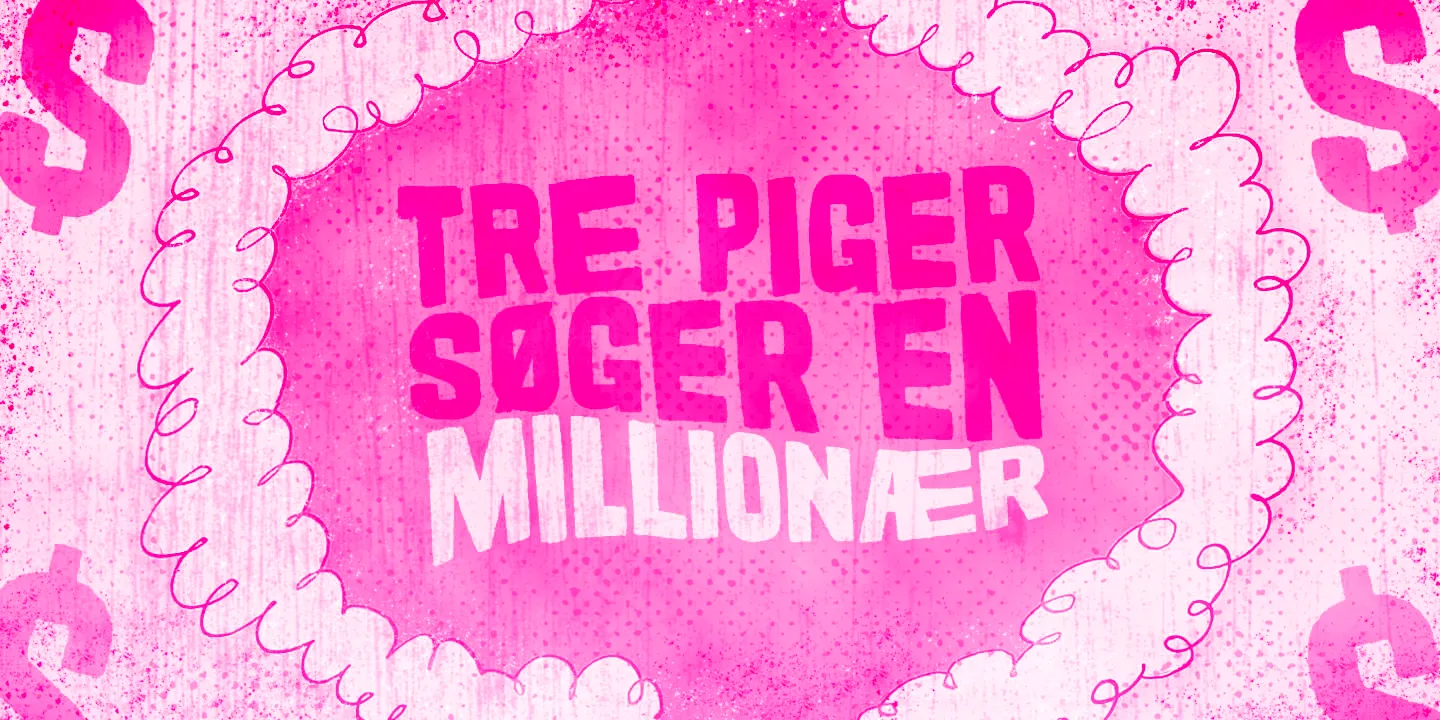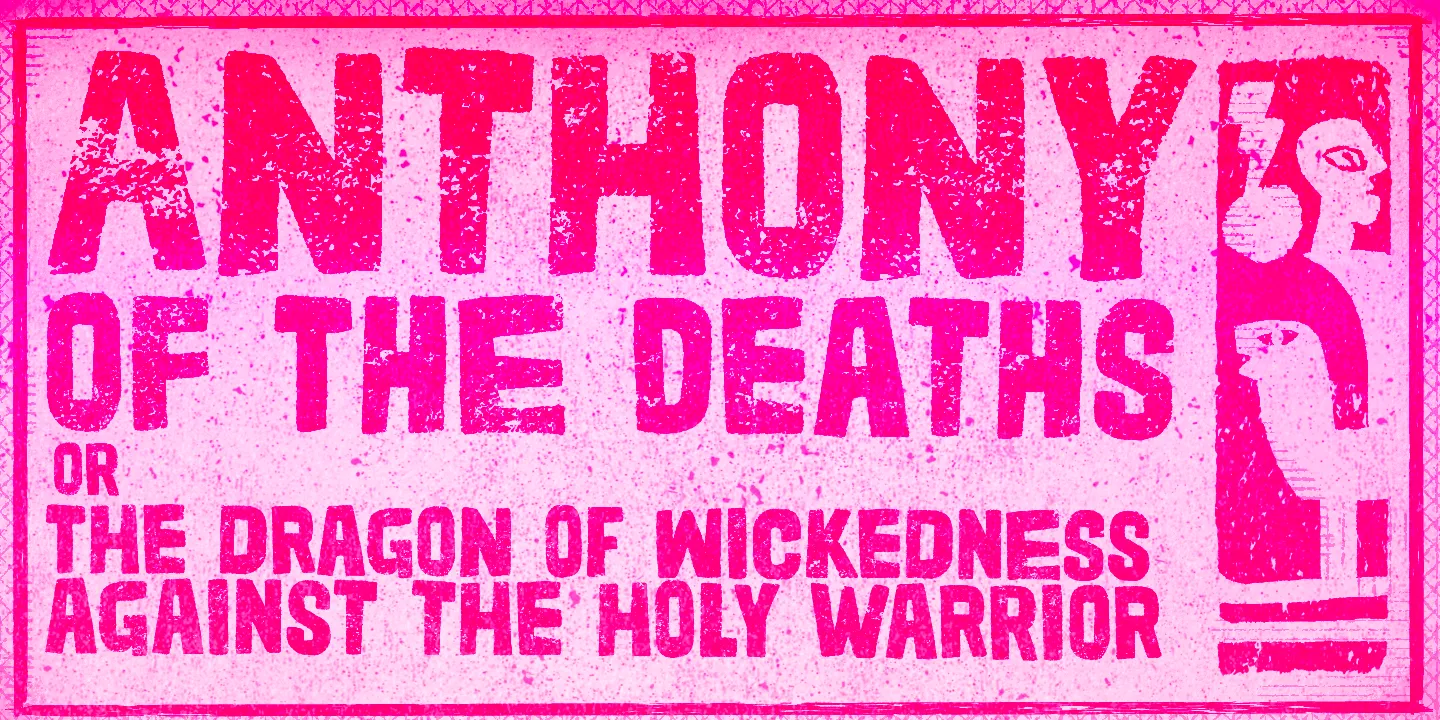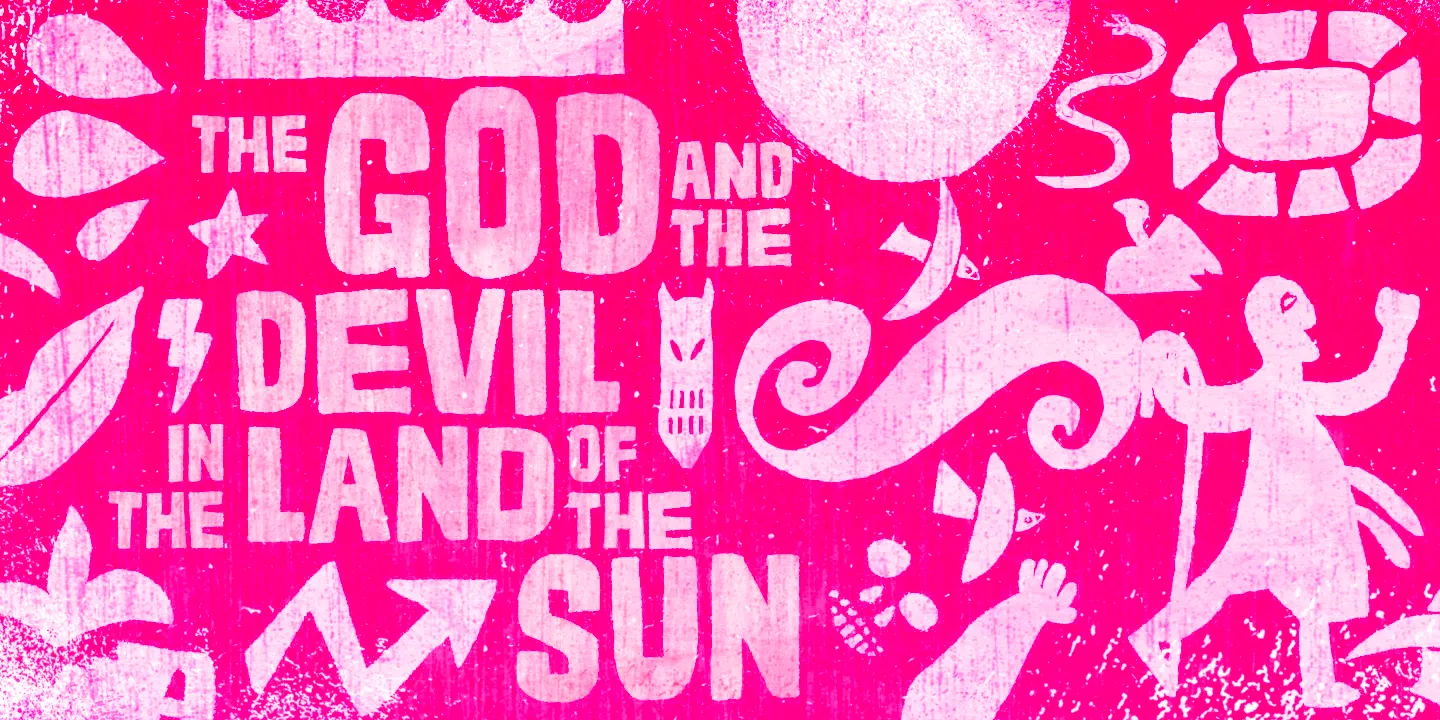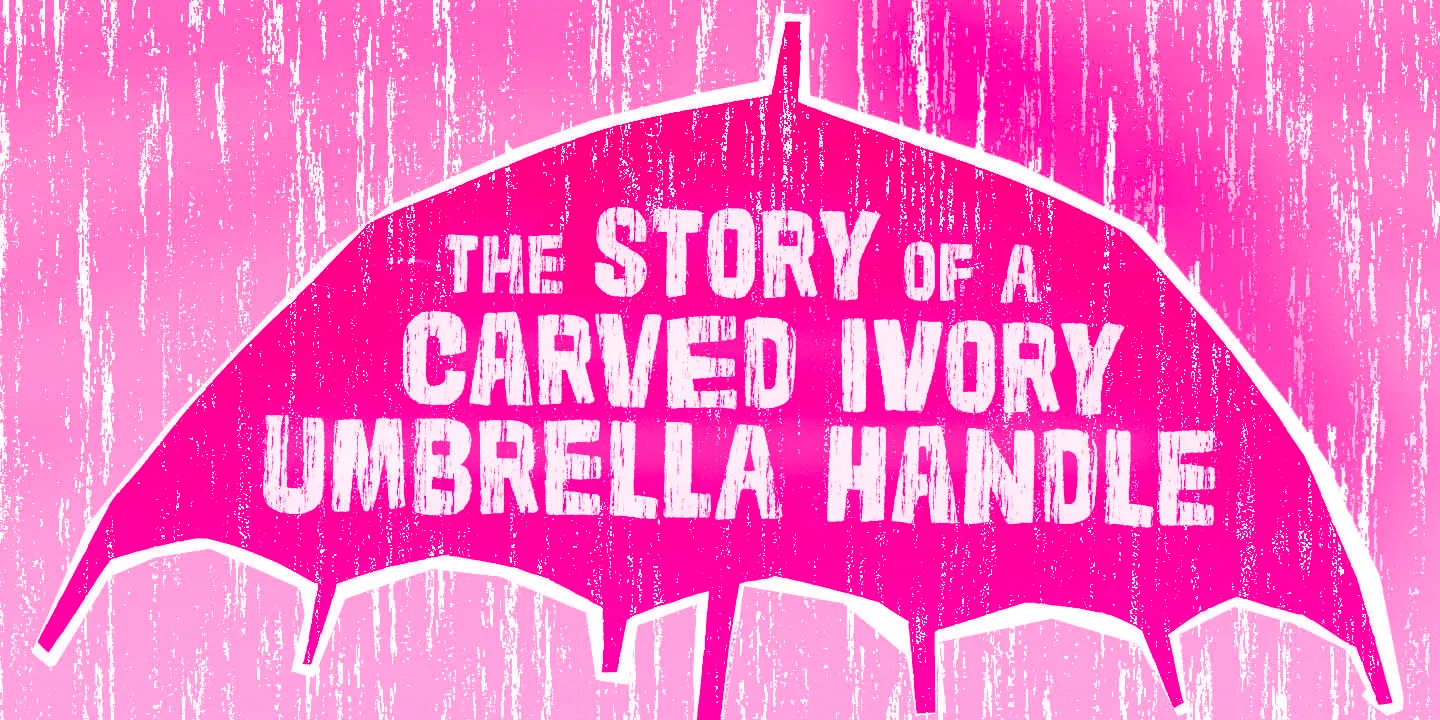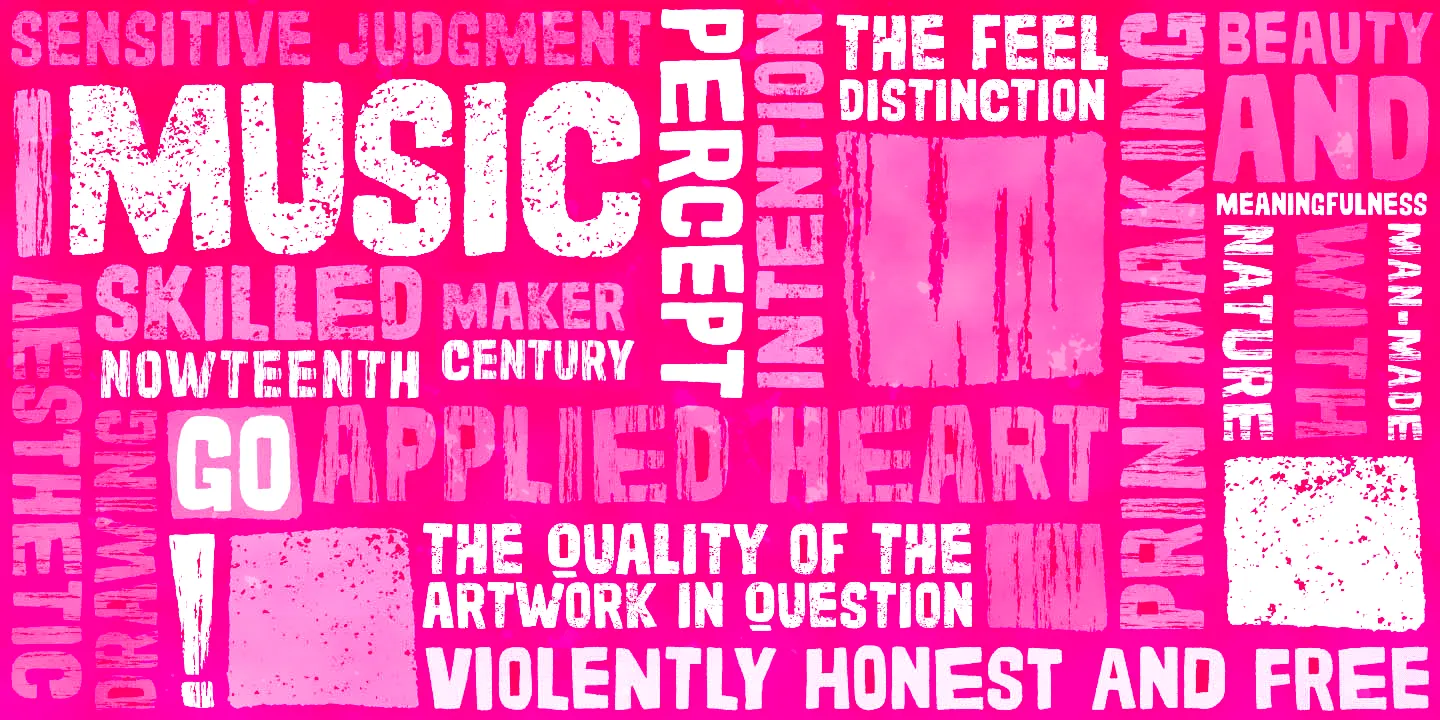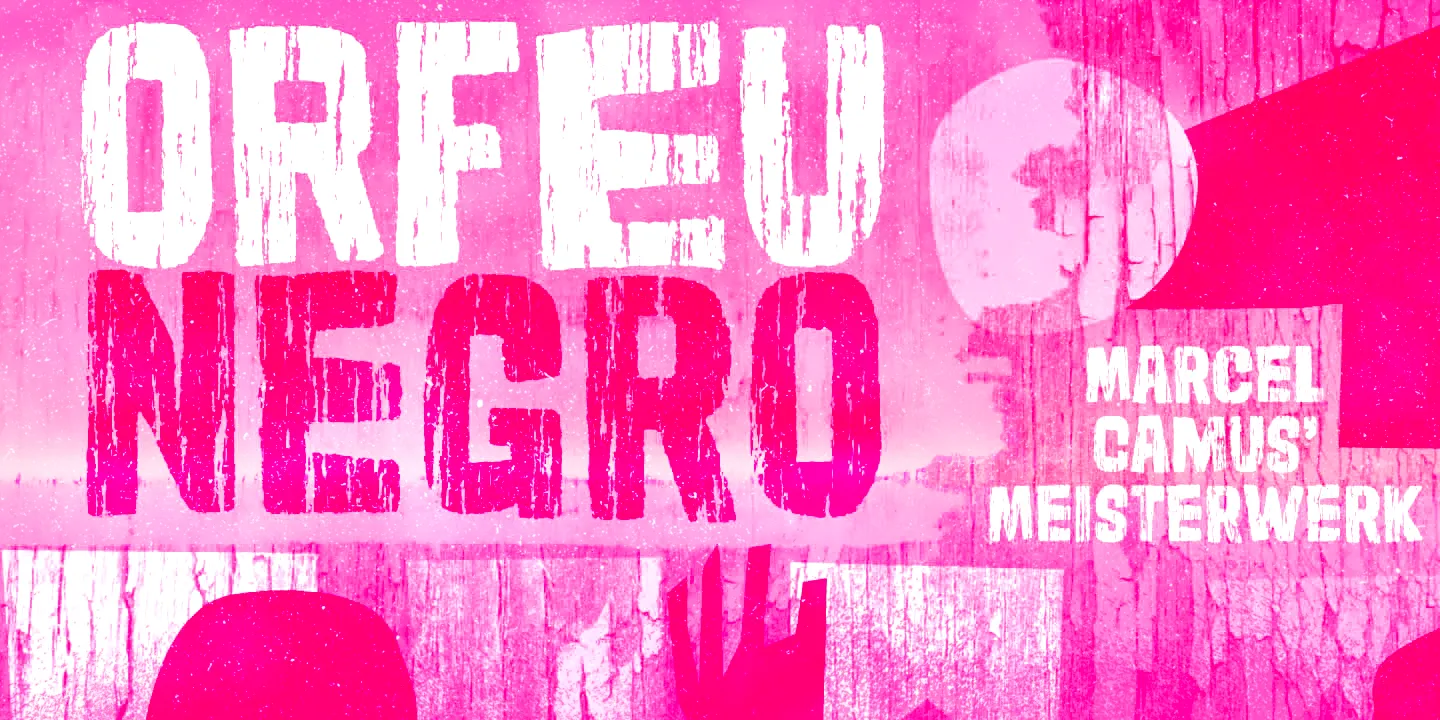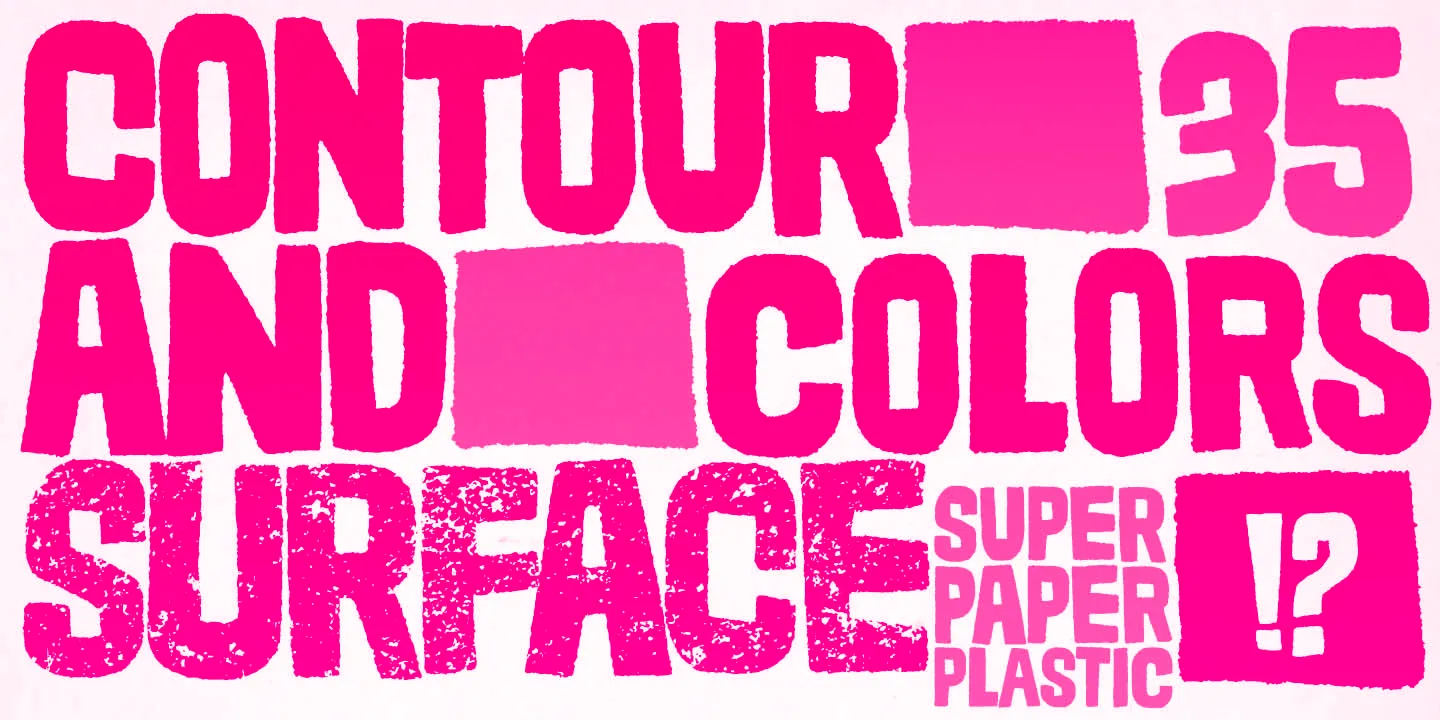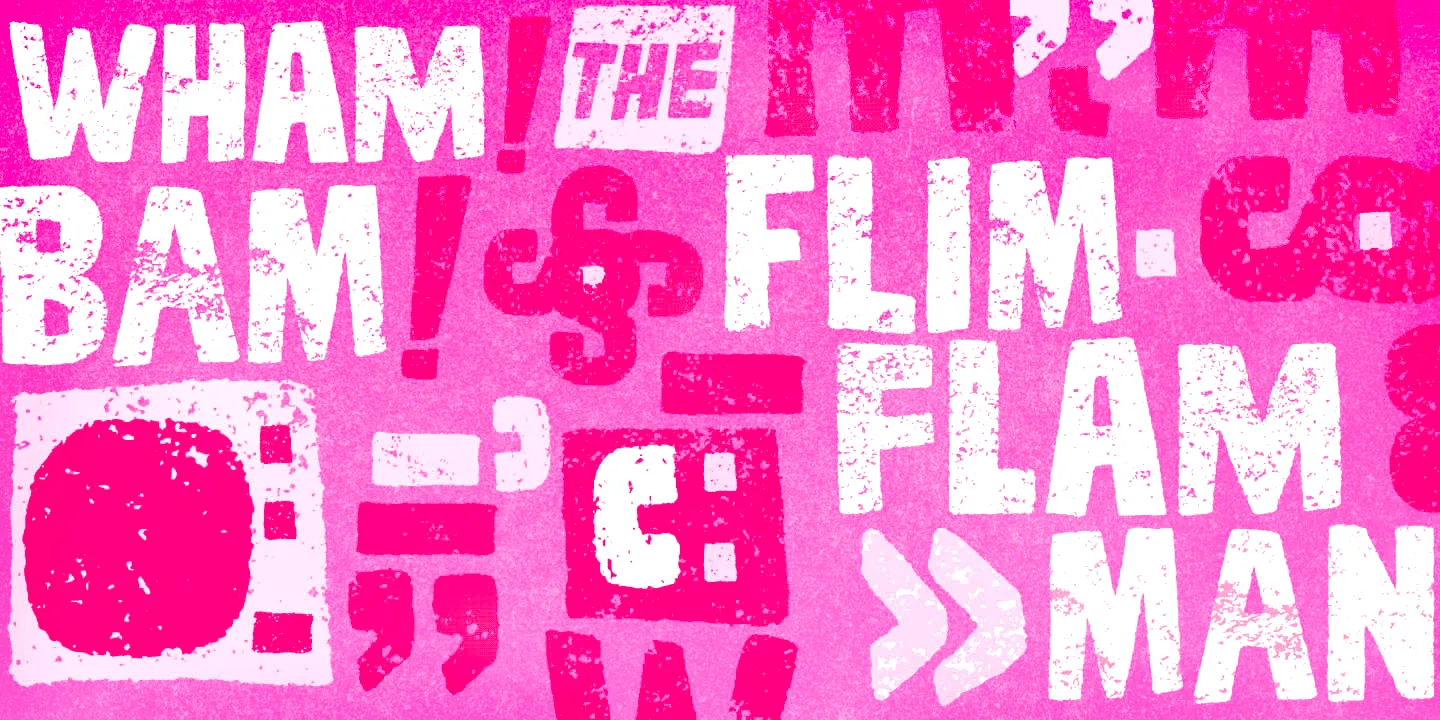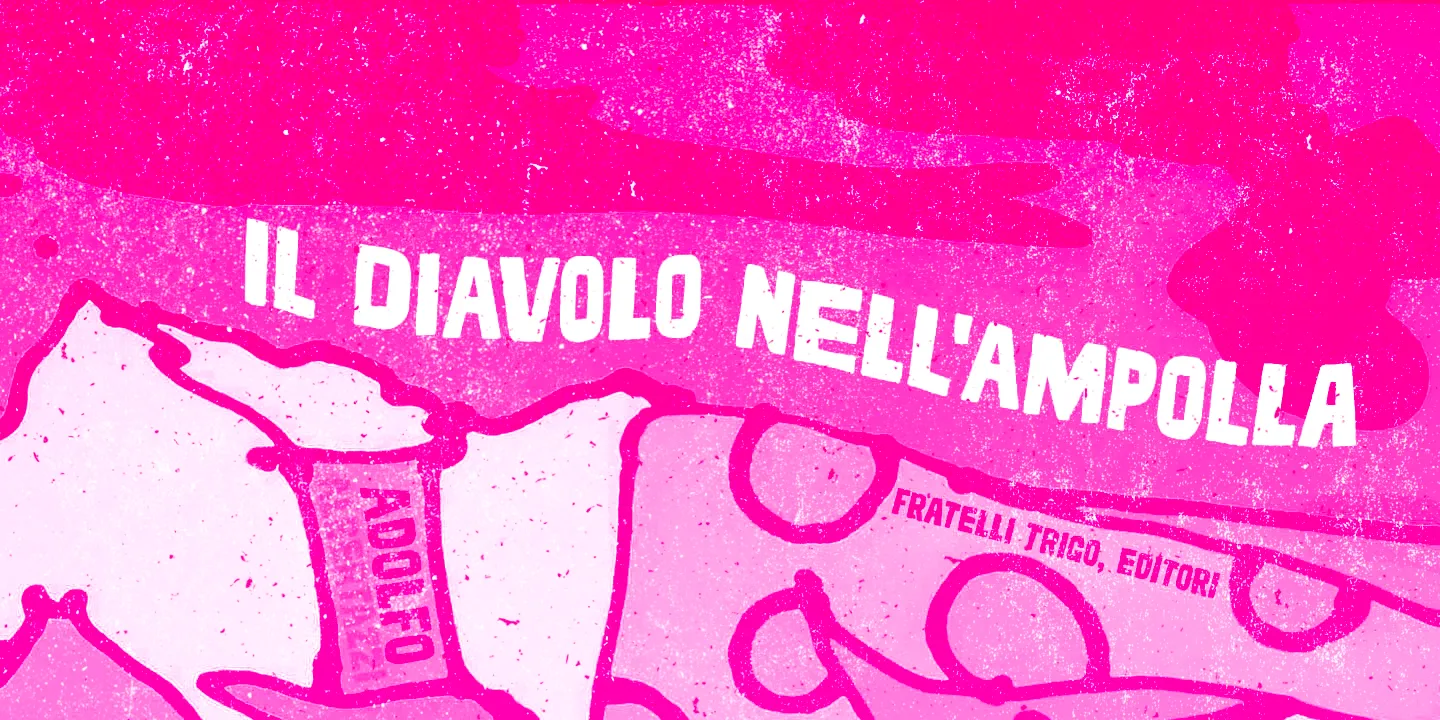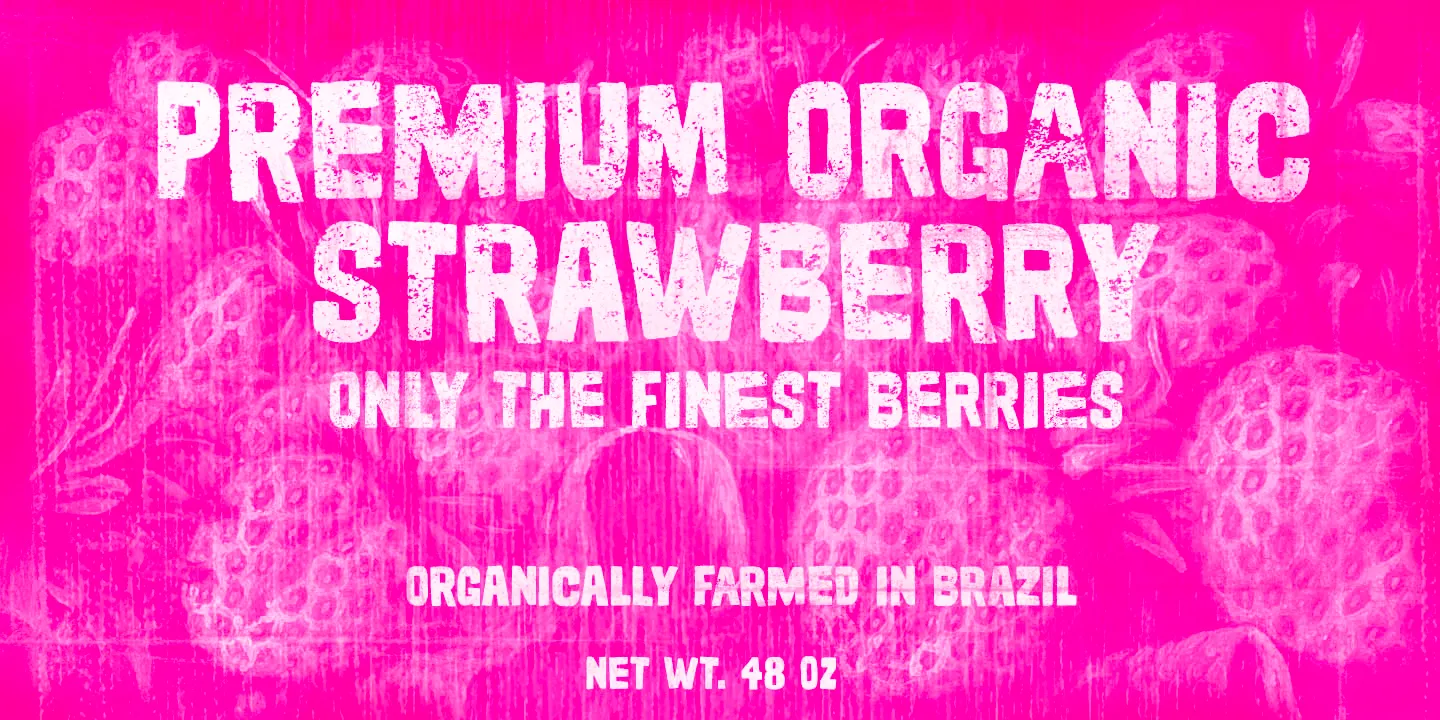
Cordelia Font Family
• Cordelia Regular
• Cordelia Stone
• Cordelia Wood
Cordelia
Cordelia is a bold, condensed sans serif with a rugged, handcrafted quality across three distinct textures. Impactful and vibrant, the Cordelia family draws inspiration from covers of “cordel literature,” small booklets printed on coarse paper, typically featuring woodcut illustrations and lettering on the front. These booklets were sold on the streets, in marketplaces and town squares, and hung on a cord — therefore, the name “cordel.” Ideal for music posters, book covers, and packaging design.